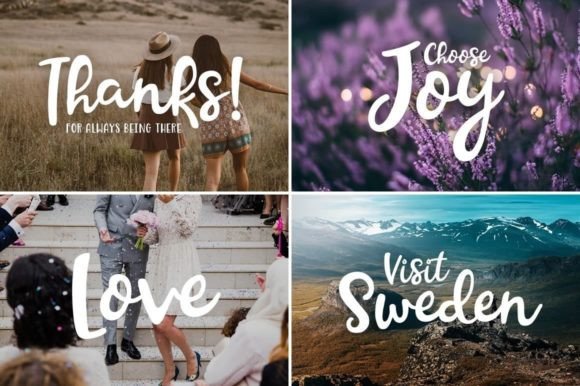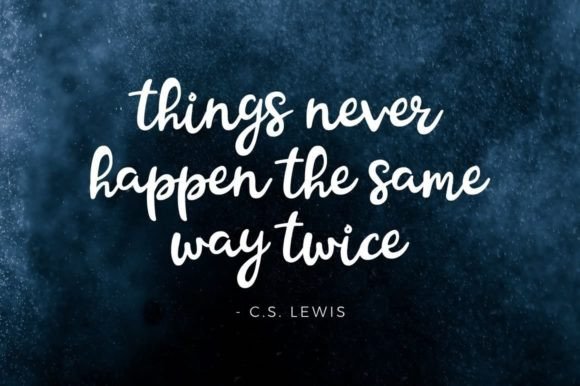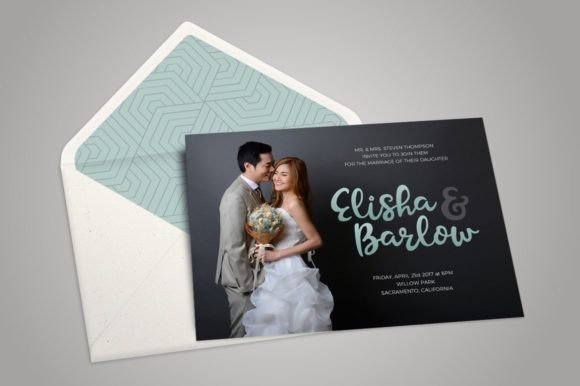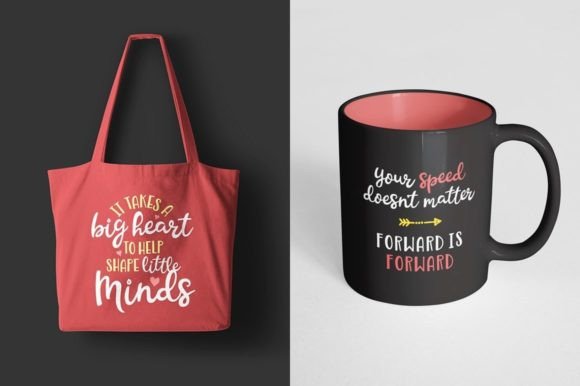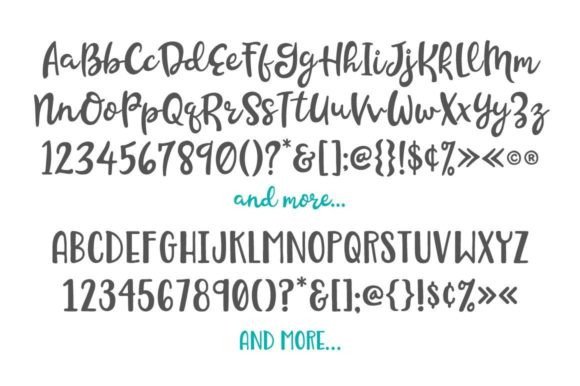
Beachwood is a beautiful, hand-drawn font duo. A script and sans that create a casual, yet stylish combination. Perfect for invitations, prints, greeting cards, and so much more!